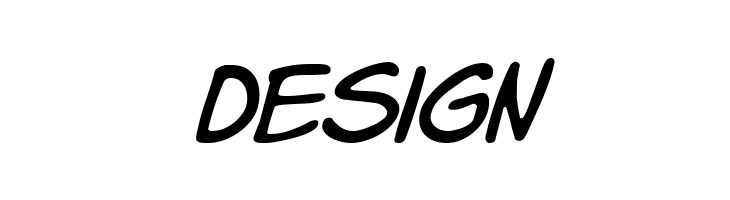
Morthwicks Italic Font
( Fonts by Press Gang Studios - Andeh Pinkard - www.pressgang-studios.com )
A dynamic italic font with smooth, slanted letterforms and a modern edge.